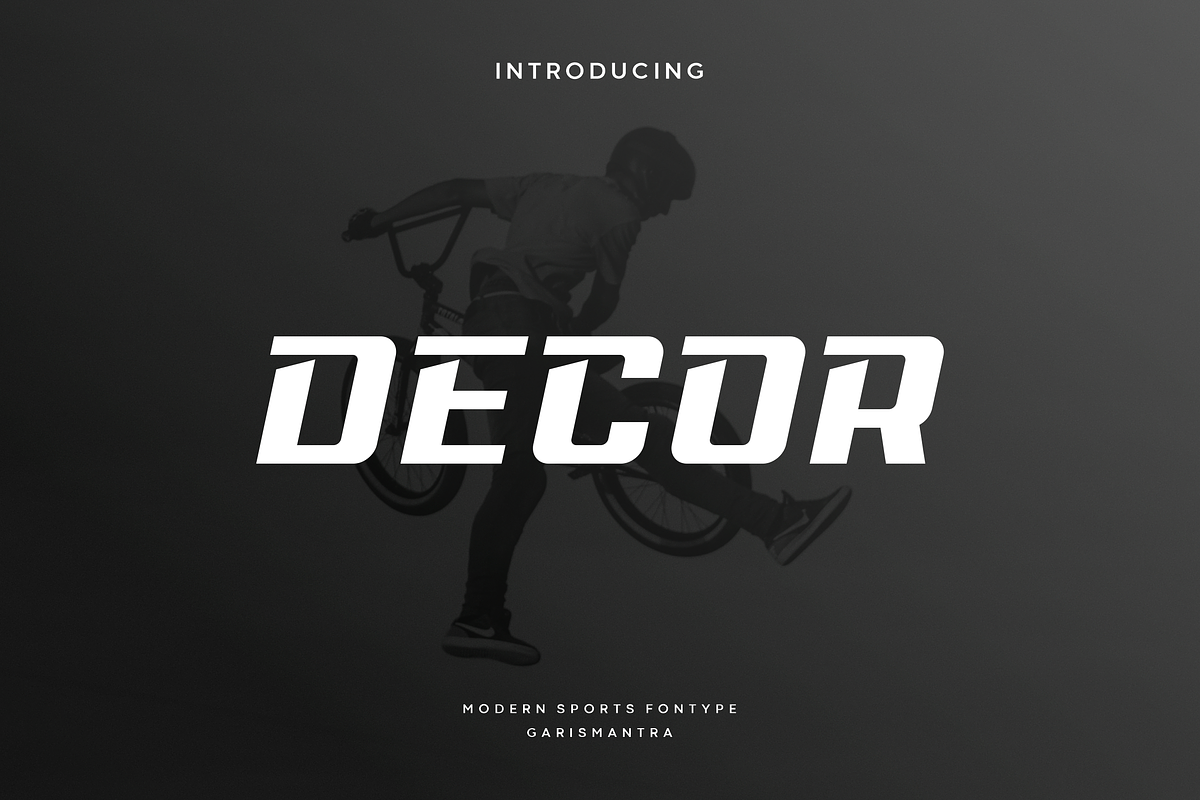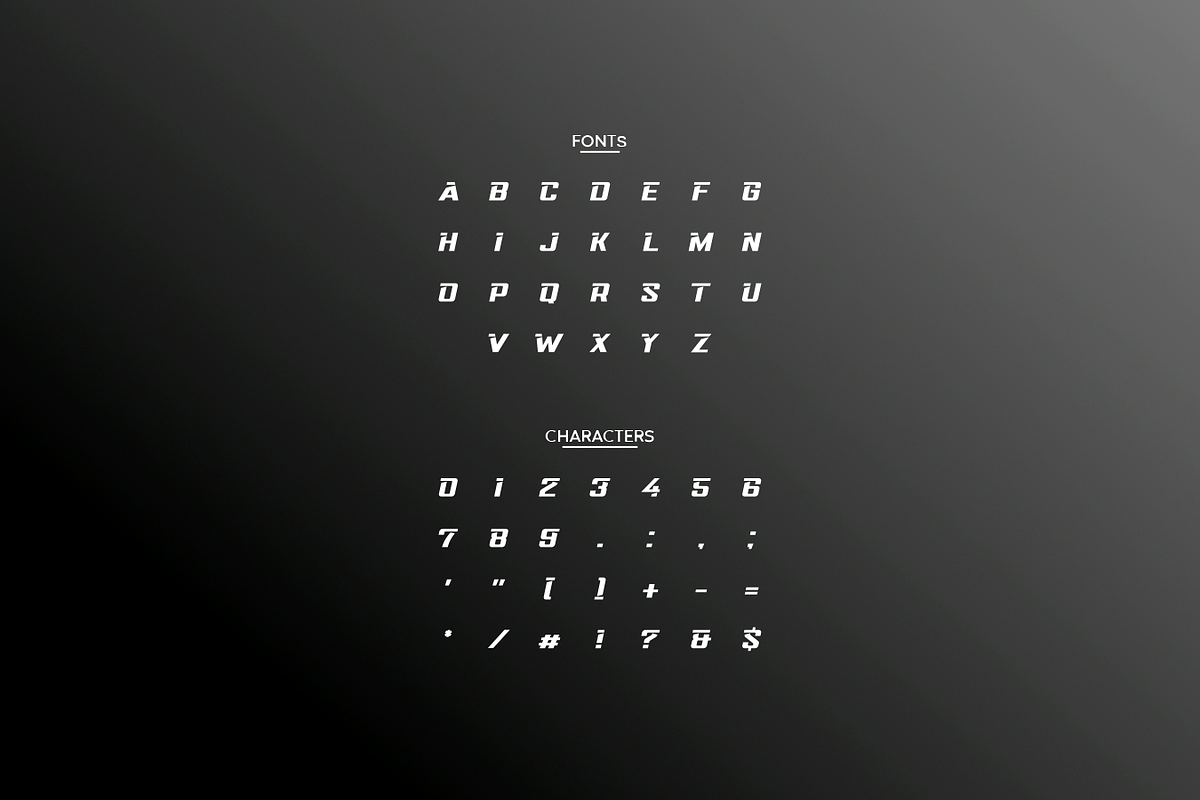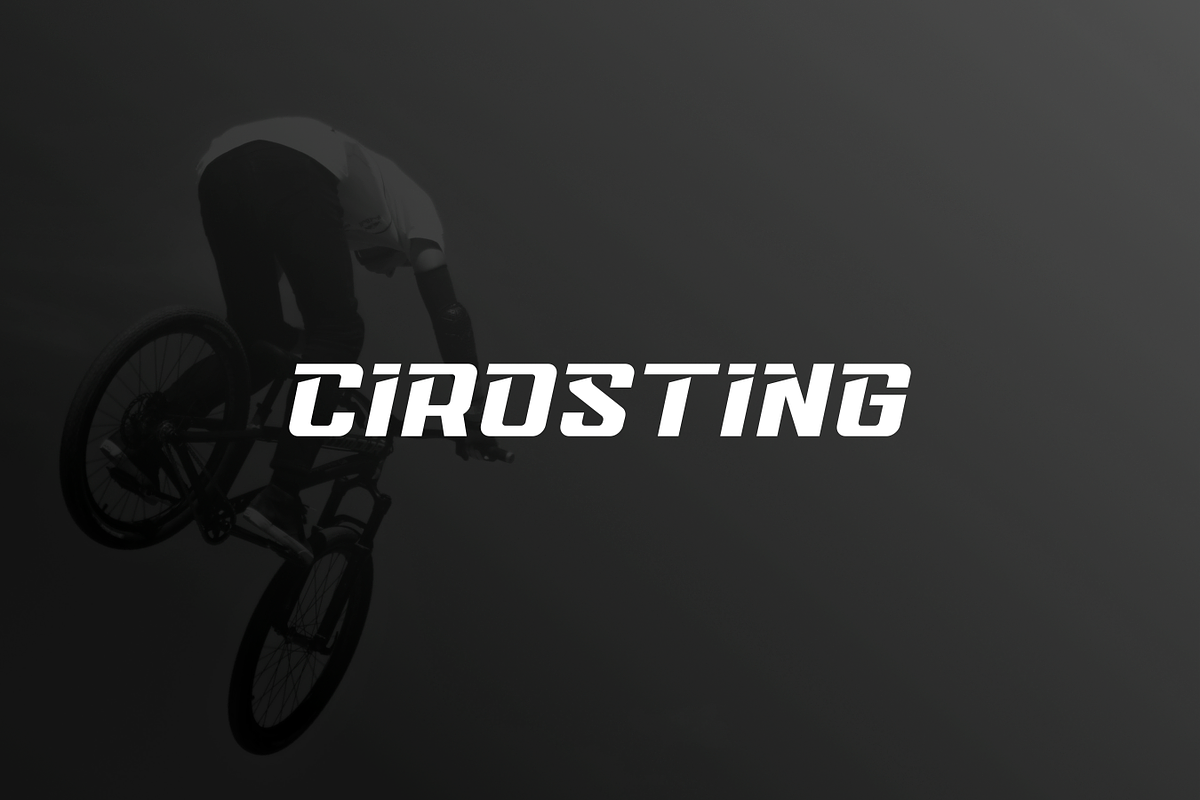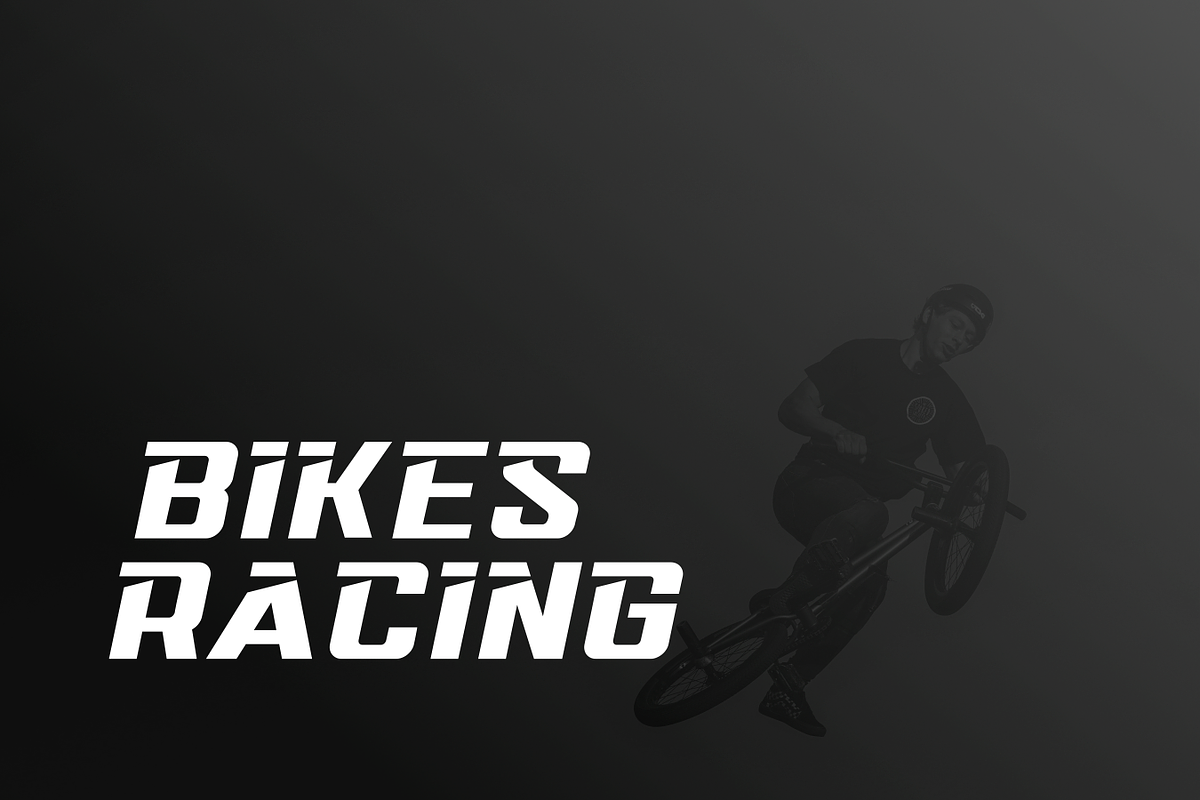
Decor
Decor an awesome sports font with wide italic fonts, modern cutouts, and dynamic slant. Ideal for fast car racing sports titles, bmx, cycling, automotive game logos and monograms or other modern dynamic text. Decor compare favorably with legibility and size, creating the effect of power and speed. Designed as a fast and dynamic font, but with a slightly different font design, check it out and grab it right away.